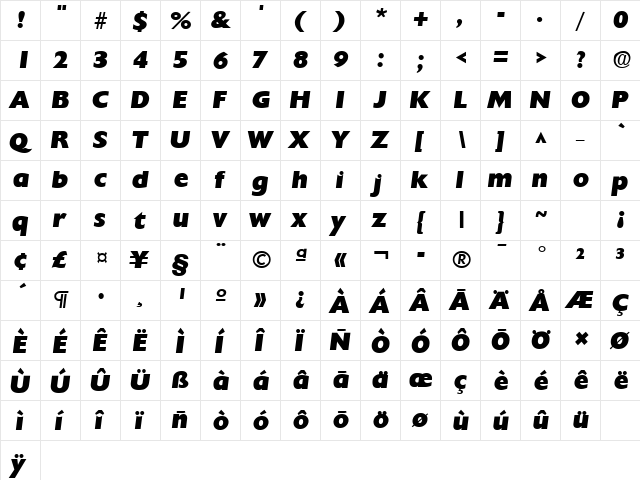
ChantillyLH Bold Italic
Design Context for ChantillyLH Typeface
ChantillyLH takes a measured approach to typography — its balanced proportions and neutral character make it a reliable workhorse for both digital and print work. The slanted form adds forward momentum and visual energy. The heavy weight commands attention and anchors typographic hierarchies.